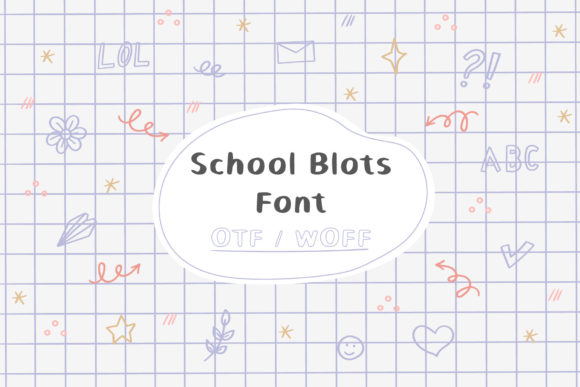
Introducing School Blots, a font that oozes timeless charm and an effortless ability to elevate your designs to new heights. This captivating display font boasts a fluid and easygoing demeanor, seamlessly flowing from one letter to the next, creating an enchanting visual experience.
With its clean and casual design, School Blots exudes a genuine sense of warmth and approachability, making it an ideal choice for those seeking a font that connects with audiences on a personal level. Whether you're crafting captivating posters, eye-catching flyers, or mesmerizing prints, School Blots will effortlessly transform your creative visions into tangible works of art.
Created by the talented Anka Drozd, School Blots possesses a versatility that knows no bounds. Its inherent adaptability shines through in its ability to harmonize effortlessly with a wide array of design styles, ranging from vintage-inspired aesthetics to contemporary and minimalist approaches. Let your imagination roam free as you explore the endless possibilities that await with School Blots.
The true essence of School Blots lies in its ability to inject a touch of sophistication into your designs without sacrificing playfulness. Its meticulously crafted characters dance across the screen, forming words and phrases that capture attention and linger in the memory. Whether you're a seasoned designer or just starting your creative journey, School Blots will become an indispensable tool in your arsenal, adding a touch of magic to every project you undertake.
Elevate your designs to new heights with School Blots, the display font that embodies timeless elegance and endless versatility. From captivating posters to stunning flyers and mesmerizing prints, let this font take center stage and transform your ideas into captivating masterpieces. Embrace the beauty of School Blots and unlock a world of creative possibilities today.